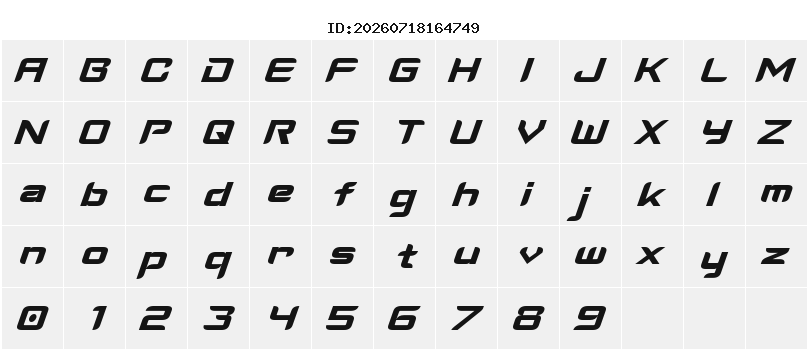
Cyberverse Oblique Preview
• Font Name: Cyberverse Oblique
• Font ID: Cyberverse Oblique:Version 1.00
• Full Font Name: Cyberverse Oblique
• Version: Version 1.00 June 24, 2011, initial release
• PostScript Name: Cyberverse Oblique
• Designer: 乥慬攠䑡癩摳潮
About Cyberverse Oblique.ttf
Cyberverse Oblique.ttf is a modern, elegant sans-serif font designed for ultimate readability and visual harmony. Perfect for branding, headlines, web design, and print materials.